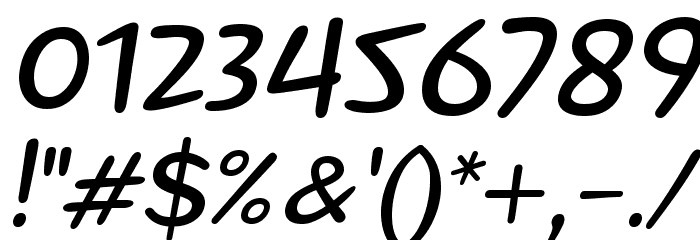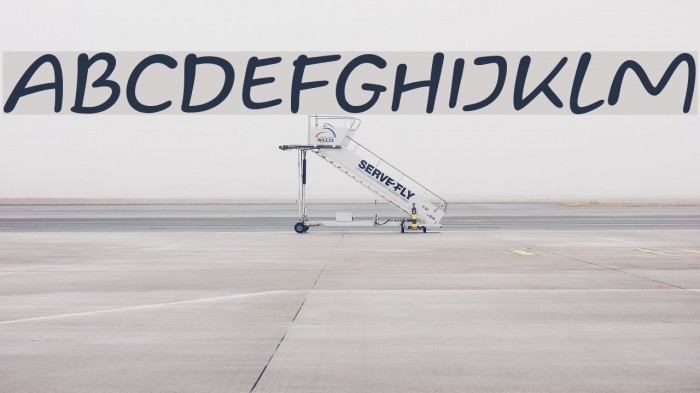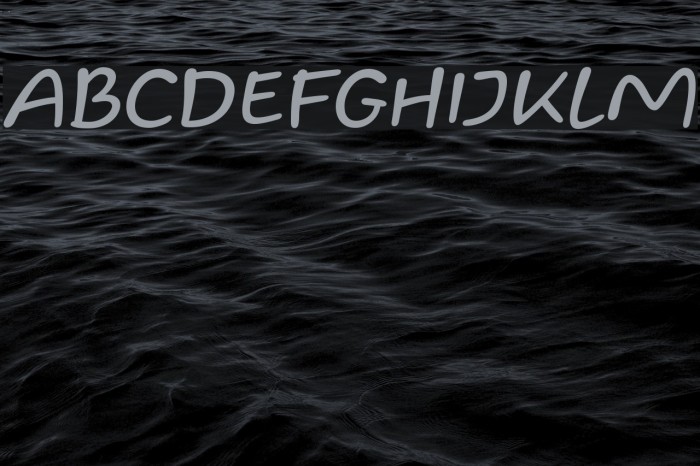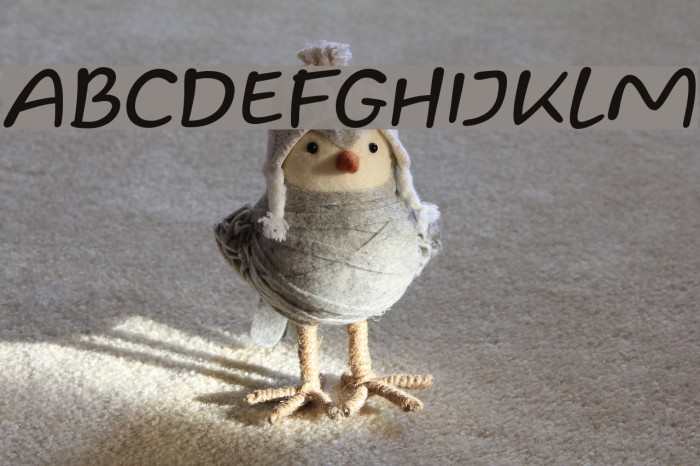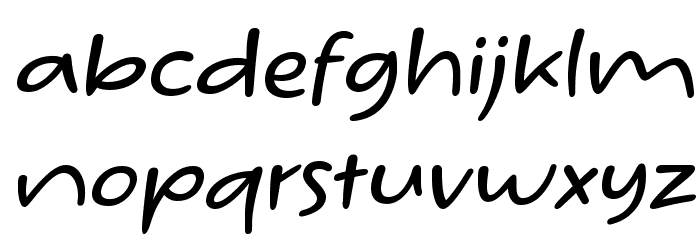
Homade McRacken Slant Font
Homade McRacken Slant Description
This font features a casual, handwritten style with a slight slant, giving it a dynamic and informal appearance. The characters are rounded and smooth, with consistent stroke widths that convey a friendly and approachable feel. The uppercase and lowercase letters maintain a cohesive look, while the numbers and special characters are clearly legible and well-integrated into the overall design. This font's playful yet clear style makes it suitable for a variety of creative projects.
A casual, handwritten font with a slight slant and smooth, rounded characters from Uncategorized fonts.
- Proposed Projects: Ideal for greeting cards, personal branding, social media graphics, and informal invitations.
- Overall Style: Casual
- Use Case: Logos, Headlines, Informal Text